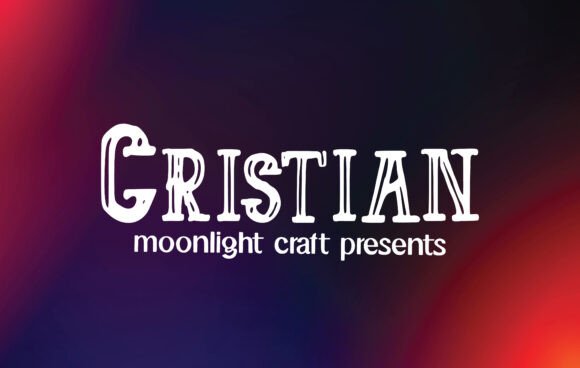
Cristian Font: Elevate Your Creative Ideas with this Lovely Handwritten Font
In the world of typography, a good font can make all the difference in taking your creative ideas to the next level. If you’re looking for a font that can add a touch of elegance and sophistication to your designs, look no further than Cristian Font. This beautiful handwritten font has the potential to elevate your creative projects and make them stand out from the crowd.
What Makes Cristian Font Special?
Cristian Font is a lovely and beautiful handwritten font that boasts a range of features that make it perfect for creative projects. Some of its key features include:
- Unique and Elegant Design: Cristian Font has a unique and elegant design that is sure to catch the eye. Its handwritten style gives it a personal and approachable feel that is perfect for a range of creative projects.
- Highly Versatile: This font is highly versatile and can be used for a range of creative projects, from logos and branding to quotes and social media graphics.
- Easy to Read: Despite its elegant design, Cristian Font is easy to read and understand, making it perfect for use in body text as well as headings.
What Can You Use Cristian Font For?
Cristian Font is a highly versatile font that can be used for a range of creative projects. Here are some of the most popular use cases for this font:
- Logo Design: Cristian Font is perfect for creating eye-catching logos that stand out from the crowd. Its unique and elegant design makes it ideal for use in logo design.
- Branding: This font is also great for use in branding projects, such as business cards, letterheads, and packaging.
- Quotes and Social Media Graphics: Cristian Font is perfect for creating quotes and social media graphics that are both visually appealing and easy to read.
- Wedding and Event Stationery: This font is also great for use in wedding and event stationery, such as invitations, programs, and menus.
What are the Benefits of Using Cristian Font?
There are many benefits to using Cristian Font in your creative projects. Here are some of the most significant advantages:
- Stand Out from the Crowd: Cristian Font is a unique and elegant font that is sure to make your creative projects stand out from the crowd.
- Elevate Your Brand: This font is perfect for use in branding projects, and can help to elevate your brand and make it more recognizable.
Tips and Tricks for Using Cristian Font
Here are some tips and tricks for using Cristian Font in your creative projects:
- Use it Sparingly: Cristian Font is a beautiful font, but it can be overwhelming if used too much. Use it sparingly to make the most impact.
- Pair it with Other Fonts: This font pairs well with other fonts, such as sans-serif fonts and script fonts. Experiment with different pairings to find the one that works best for your project.
- Experiment with Different Sizes: Cristian Font looks great in a range of sizes, from small and delicate to large and bold. Experiment with different sizes to find the one that works best for your project.
In conclusion, Cristian Font is a beautiful and elegant handwritten font that has the potential to take your creative ideas to the highest level. Its unique and elegant design makes it perfect for use in a range of creative projects, from logos and branding to quotes and social media graphics. With its ease of use, compatibility with a range of devices and software, and versatility, Cristian Font is a great choice for anyone looking to elevate their creative projects.